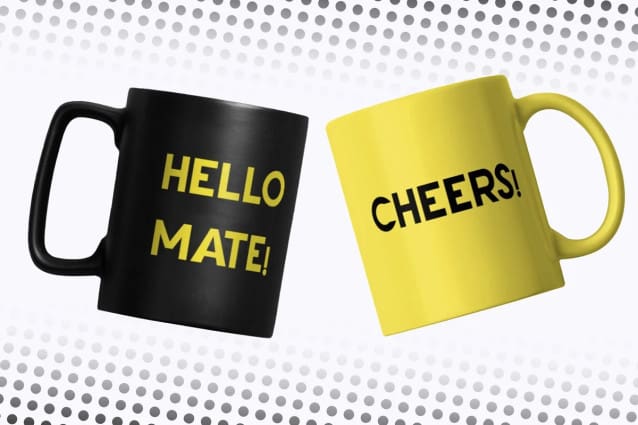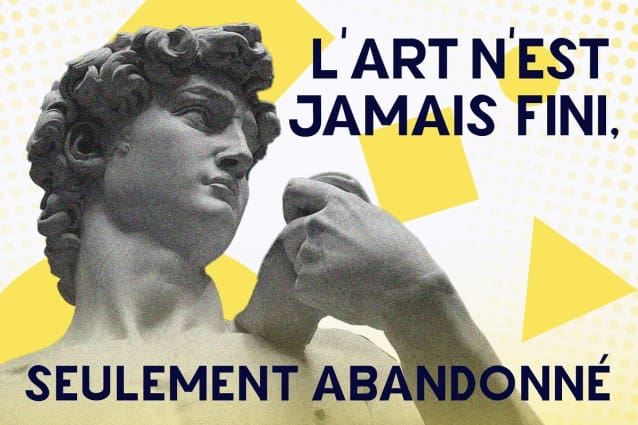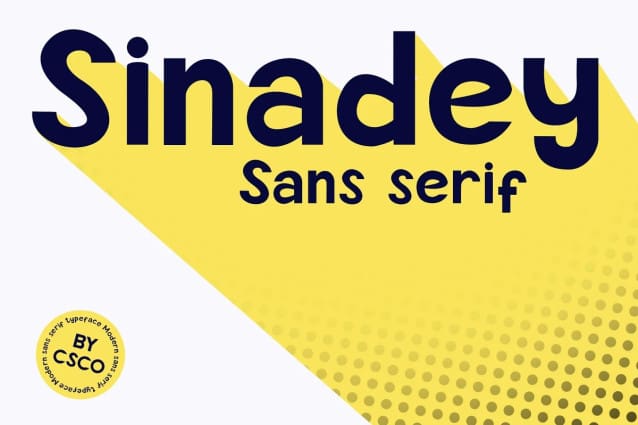
Sinadey Font
Sinadey Font – Cute Sans Serif is the epitome of adorable simplicity, offering a charming sans serif font with a crisp shape.
What sets Sinadey apart is its crisp elegance. It’s the ideal choice when you need a cute sans serif font that still maintains sharp and well-defined characters.
Sinadey’s playful charm adds a delightful touch to your designs, making it perfect for a wide range of creative projects.
This font’s versatility shines through, ensuring that it can be used in various design contexts, from invitations to logos and more.
In summary, Sinadey Font – Cute Sans Serif is your go-to when you desire a cute sans serif font with crisp, well-defined shapes. Its adorable simplicity, crisp elegance, and playful charm make it versatile and suitable for a diverse array of design projects, ensuring that your content remains engaging and inviting to all readers.